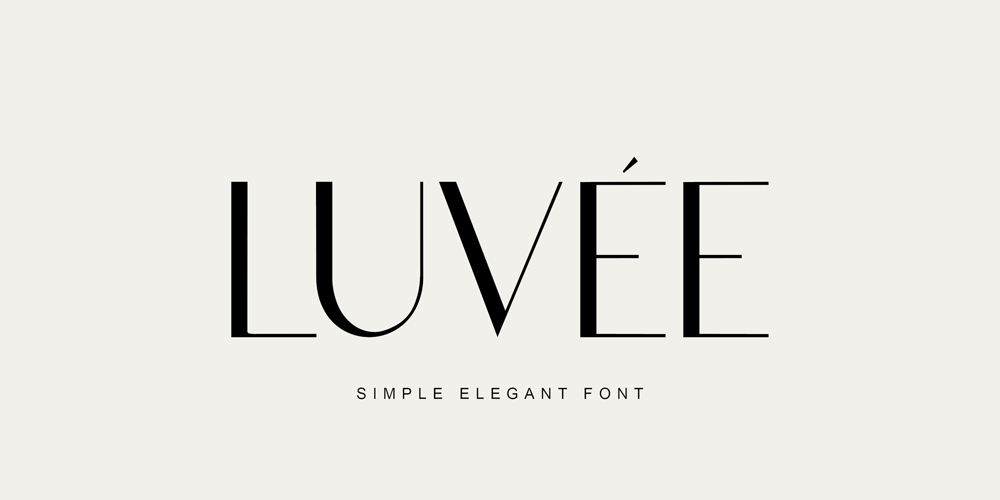
Luvee Font Family was designed by Elvina Gafarova and published by Elvina Studio. Luvee contains 2 styles and family package options. Luvée is a simple, elegant sans-serif font with clean lines and timeless style. Perfect for modern, minimalist designs, it adds a touch of sophistication to any project.- Upper/lowercase, numbers, punctuations;- Regular, Oblique.Language support: English, German, French, Spanish, Italian, Danish, Finnish, Portuguese, Swedish, Norwegian, Dutch, Indonesian, Luxembourgish, Icelandic, Cornish, Hungarian, Filipino, Romansh, Slovenian, Estonian, Polish, Turkish.Have a wonderful day.